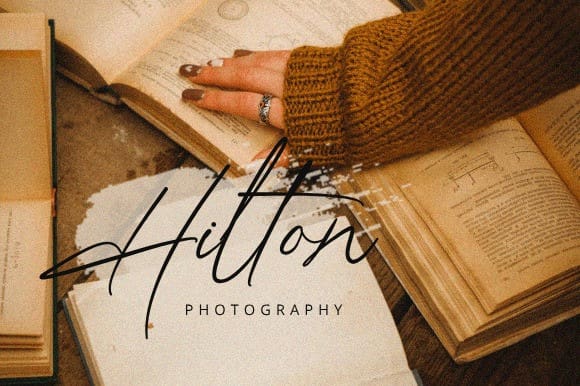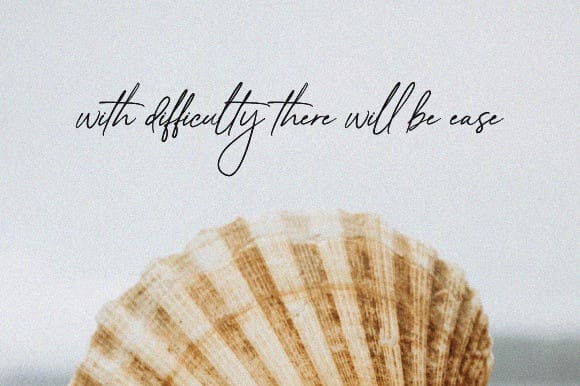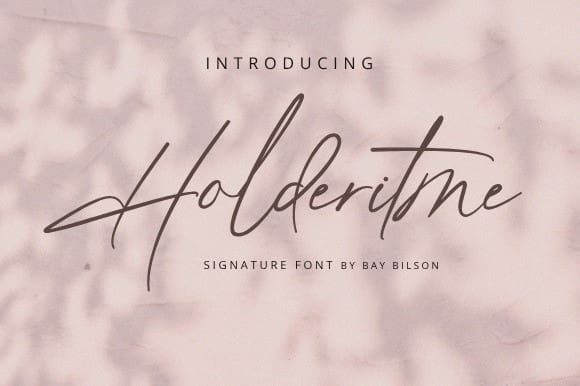
Holderitme Handwritten Font
Holderitme Handwritten Font is a script font characterized by its elegant and flowing design. The letters exhibit a harmonious rhythm, with gracefully connected strokes that convey a sense of fluidity and style. The font features delicate curves and varying line weights, adding a touch of sophistication to its overall appearance. Ritme is well-suited for projects that require a balance between traditional and modern aesthetics, making it a versatile choice for various creative endeavors such as invitations, branding, and editorial design. With its graceful letterforms, Ritme brings a sense of charm and grace to the written word.